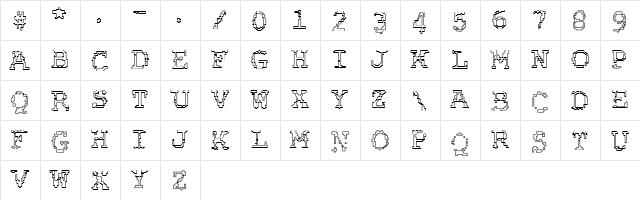
Rubber Biscuit Bevel Outline
| Style | Bevel Outline |
Design Context for Rubber Biscuit Typeface
Rubber Biscuit is built around its visual character rather than neutral utility — its distinctive forms are designed to make an impression at display sizes.